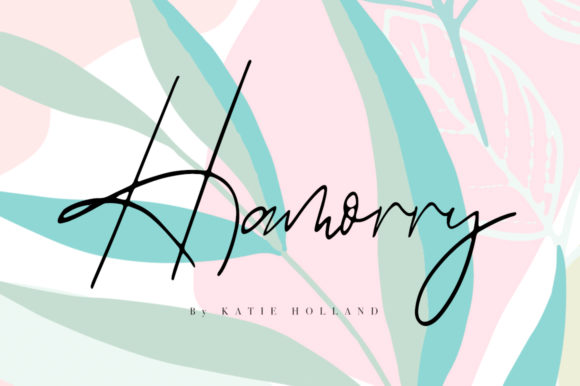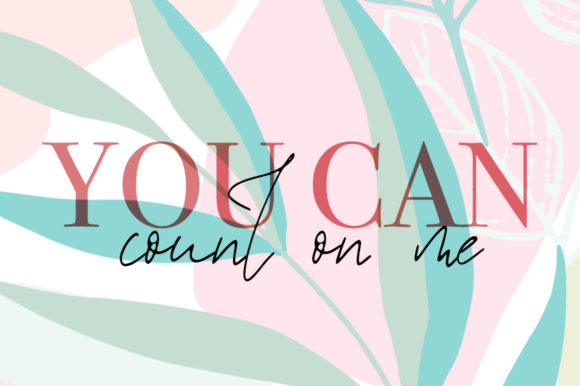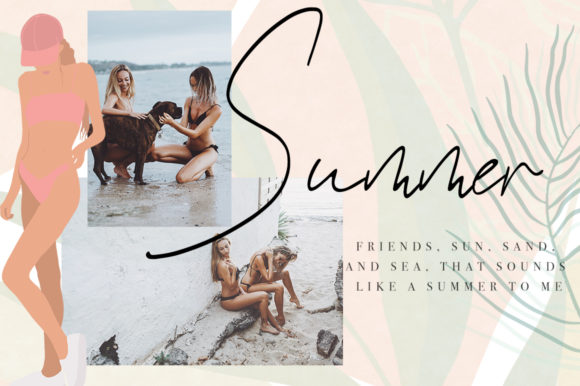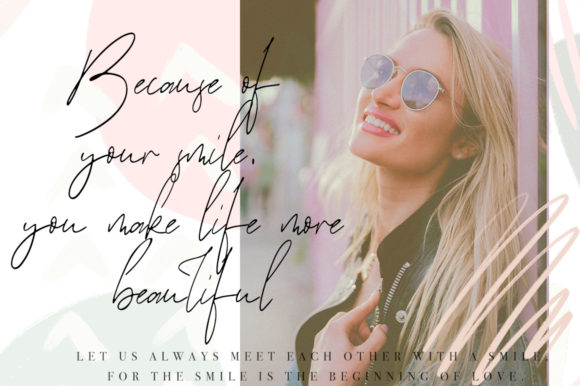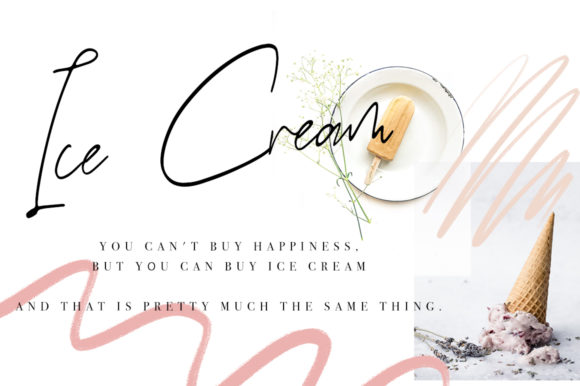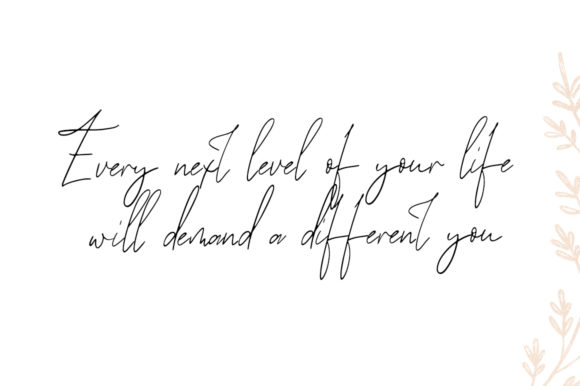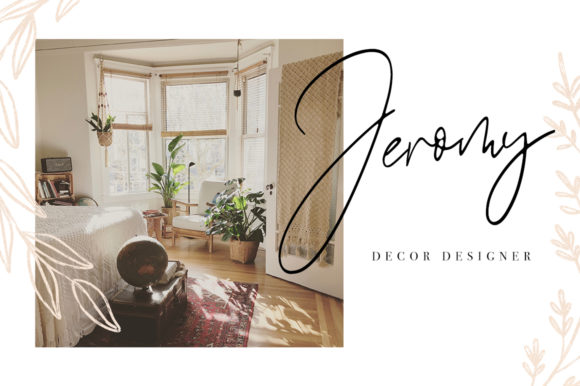
Hamorry Font
About Hamorry Font
Hamorry is a light, cool and contemporary handwritten font with a smart feel. Use it to add a personal vibe to any design project!